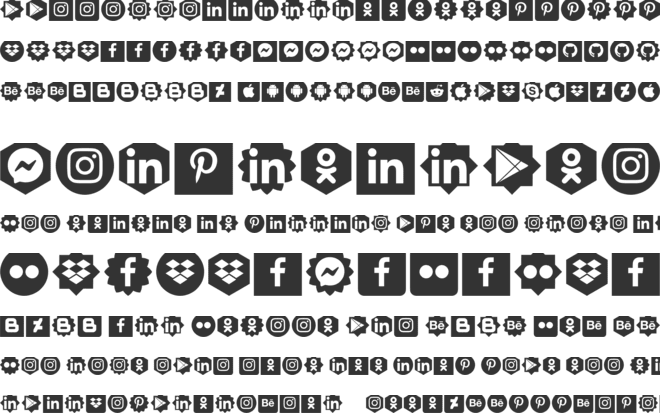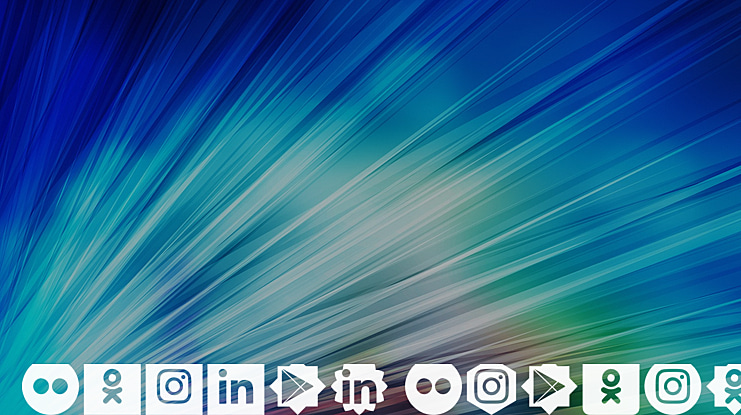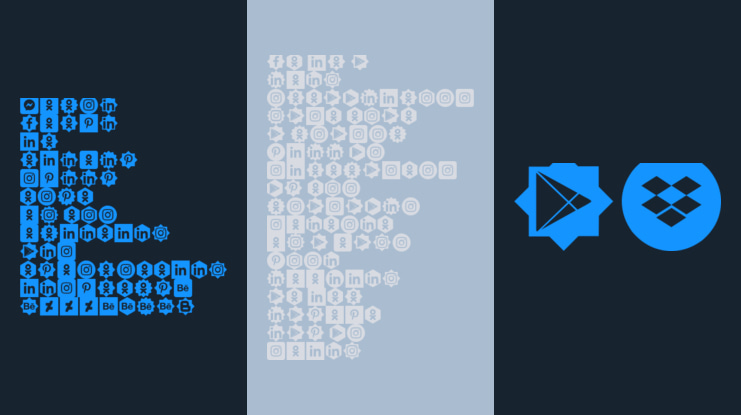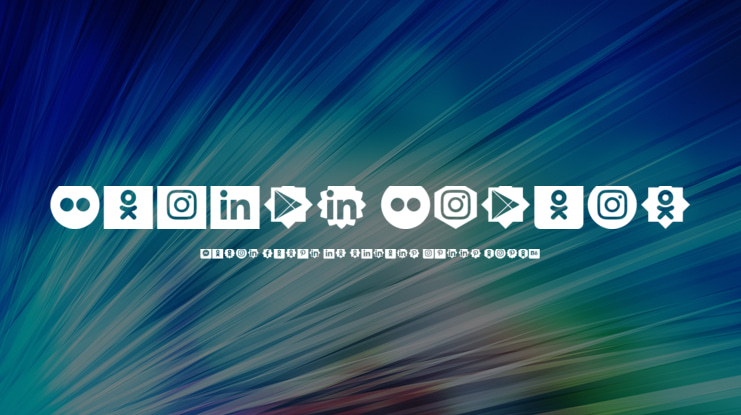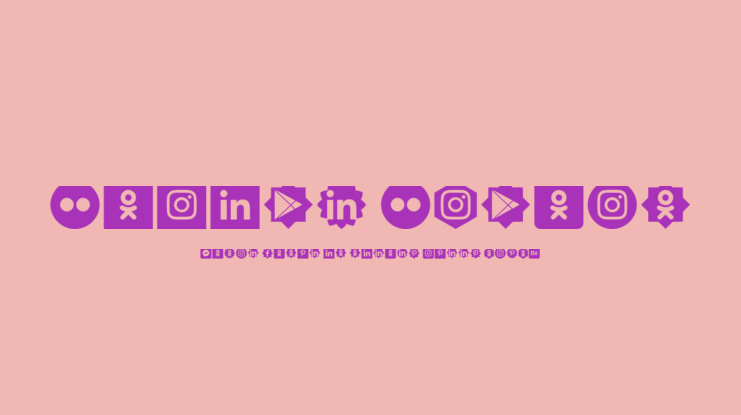
Social Shapes Font
Huge update for a huge list of the most popular social networks, instant messaging and brands, all with six shapes. Its comes in desktop font type known as .ttf of course, but also in web fonts .woff and .woff2
Complete list of the new brands icons : - Android - Apple - Behance - Blogger - DeviantArt - Dropbox - Facebook - Facebook Messenger - Flickr - GitHub - Google Play - Instagram - LinkedIn - Ok (Odnoklassniki) - Pinterest - Reddit - Signal - Sina Weibo - Skype - Snapchat - Steemit - Telegram - Tiktok - Tumblr - Twitter - Viber - VKontakte (VK) - Whatsapp - WeChat - WordPress - Youtube
Social Shapes font preview